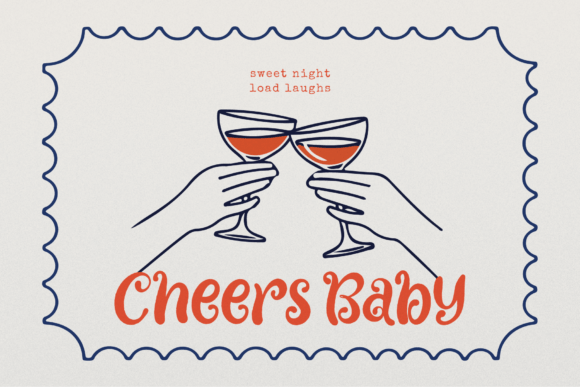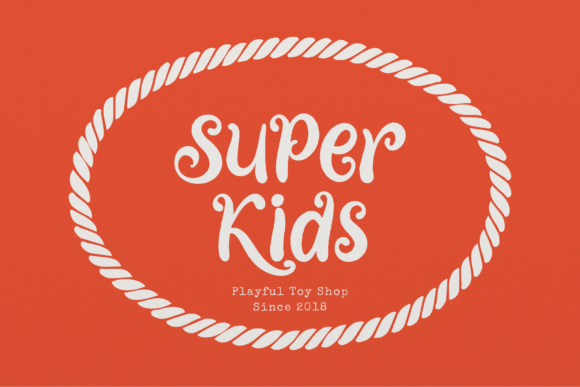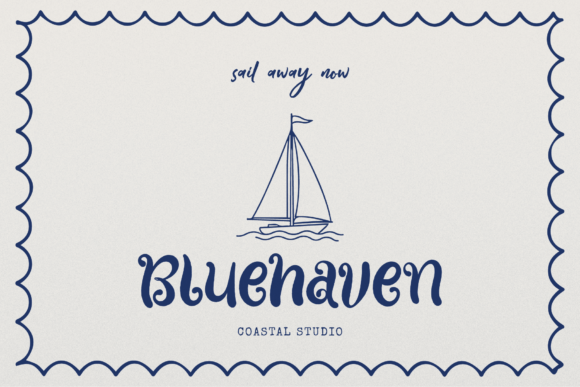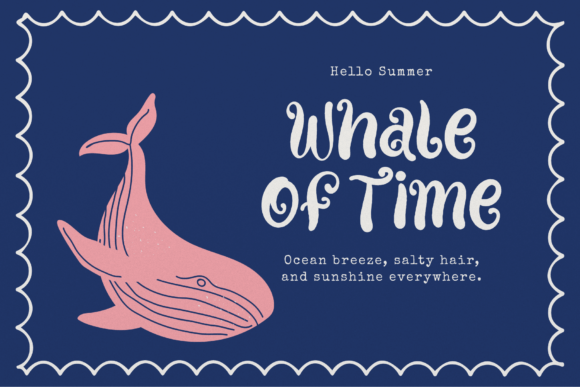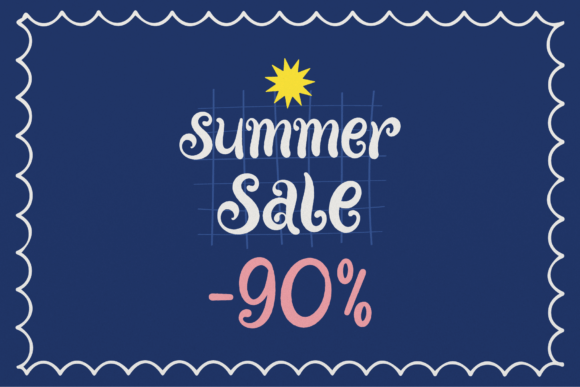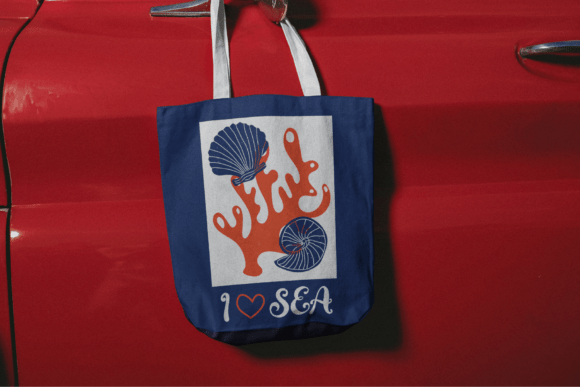
Embracing the Beautifully Imperfect Charm of Akward & Silly Font
In a world where typography often strives for perfection, Akward & Silly boldly breaks away from conventional rules to offer a refreshingly quirky and delightfully chaotic handwritten display font. This ultra-quirky typeface, playfully described as an “ugly” handwriting script, captures the raw, unapologetic human touch that adds a layer of authenticity to any design project. Whether you’re a designer looking for a statement piece or a crafter seeking to add some personality to your creations, Akward & Silly is sure to make a lasting impression.
The Beauty of Imperfection
Akward & Silly’s intentionally imperfect design is what sets it apart from more traditional typefaces. Thick, uneven marker strokes and clunky visual weights give each letter a unique, hand-crafted feel that’s reminiscent of handwritten notes and scribbled doodles. The irregular, bouncing baseline adds to the sense of playfulness and energy, creating a sense of movement and dynamism that’s hard to ignore.
Eccentric Personality
One of the standout features of Akward & Silly is its eccentric personality, which is evident in the exaggerated loops, curling terminal tails, and asymmetrical letter combinations. These flourishes add a touch of whimsy and humor to the font, making it perfect for designs that require a lighthearted or humorous tone. Whether you’re creating a funny birthday greeting card or an edgy social media meme, Akward & Silly’s eccentric personality is sure to shine through.
Highly Scannable and Punchy
Despite its intentionally imperfect design, Akward & Silly is masterfully balanced to remain highly scannable and punchy as a standalone centerpiece. This makes it an excellent choice for designs where you want to make a bold statement or draw attention to a particular element. Whether you’re using it as a title font or a decorative element, Akward & Silly is sure to grab the viewer’s attention and hold it.
Design Applications
Akward & Silly’s unique personality and versatility make it an excellent choice for a wide range of design applications. Here are some ideas to get you started:
- Alternative streetwear labels: Add a touch of rebelliousness to your streetwear designs with Akward & Silly’s bold, playful font.
- Retro cartoon-style apparel: Create fun and quirky designs that evoke the nostalgia of retro cartoons.
- Funny birthday greeting cards: Add some humor and personality to your birthday cards with Akward & Silly’s playful font.
- Edgy social media memes: Create memes that stand out from the crowd with Akward & Silly’s bold, attention-grabbing font.
- Quirky sticker designs: Add some personality to your stickers with Akward & Silly’s unique and playful font.
- Children’s storybook layouts: Create engaging and imaginative storybooks with Akward & Silly’s whimsical font.
Tips for Using Akward & Silly
Here are some tips for getting the most out of Akward & Silly:
- Use it sparingly: Akward & Silly’s bold personality can be overwhelming if overused. Use it sparingly to create a statement piece or add emphasis to a particular element.
- Experiment with colors: Akward & Silly’s playful font looks great in a variety of colors. Experiment with different colors to find the perfect combination for your design.
- Pair it with contrasting fonts: Pair Akward & Silly with contrasting fonts to create visual interest and add depth to your design.
Akward & Silly is a unique and versatile font that’s perfect for designers and crafters looking to add a touch of personality to their creations. With its intentionally imperfect design, eccentric personality, and highly scannable and punchy style, Akward & Silly is sure to make a lasting impression. Whether you’re creating alternative streetwear labels, funny birthday greeting cards, or quirky sticker designs, Akward & Silly is an excellent choice for any design project that requires an authentic, rebellious, or whimsical point of view.